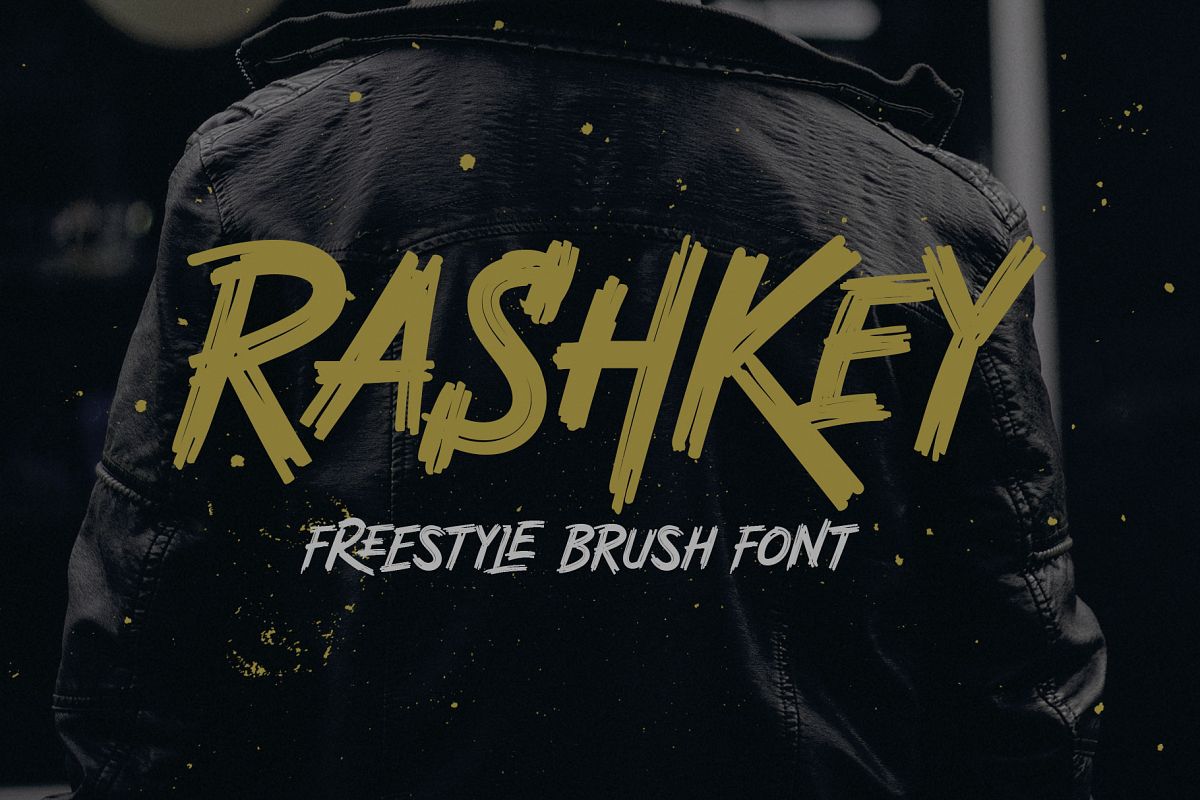
Rashkey Freestyle Brush Font
Rashkey
introducing Rashkey, a freestyle brush font. Carefully designed with a wet brush taste. Rashkey is an all-caps font that you can simply mix and match the upper and lowercase to fit your typographic concept. This font is perfect for logos, apparel, poster, book cover, albums, energetic quotes or anything with the spirit and movement-paced message.
Rashkey has stylistic alternates and many ligatures to gives more options on your designs. Also complete with numbers, symbols, punctuation and accented characters.